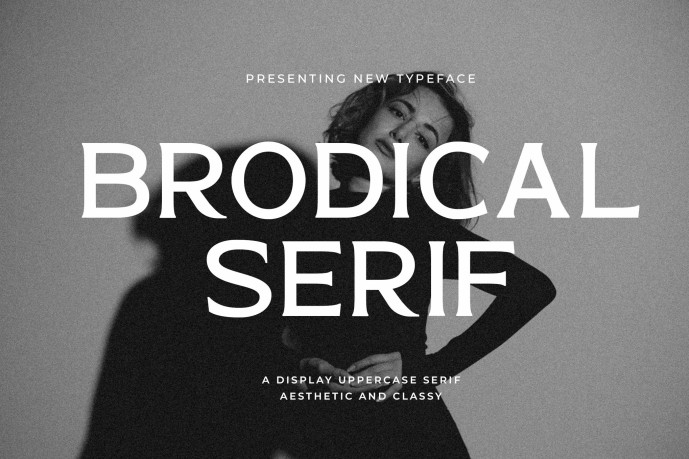
Brodical Serif Font
Designer: violetnaturalll
Brodical Serif Font is bold and confident, with a refined edge. Its low-contrast uppercase letters feel clean and restrained, but each features a striking serif that adds a distinctive twist. Ideal for branding where strong presence and readability at smaller sizes are essential—yet you still want to keep things visually engaging. This all-caps typeface works beautifully when tracked out wide. Pair it with a sleek sans serif for a sharp, modern contrast. Enjoy using it! This Font Include :